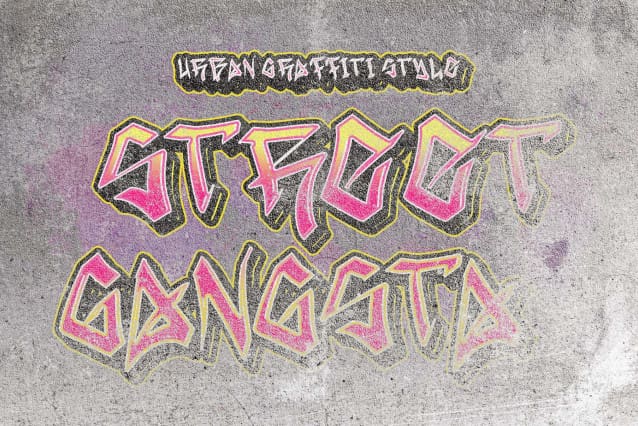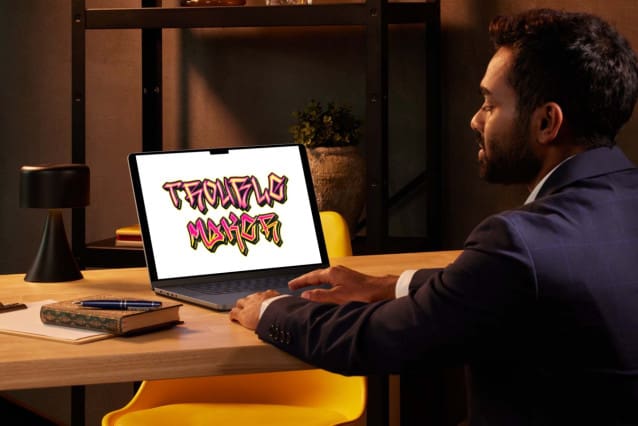
Street Gangsta Font
Street Gangsta Font is an elegant and professionally created graffiti font. Equipped with uppercase letters, lowercase letters, numerals, punctuations and multilingual support. Very suitable for banners, posters, prints, branding, stickers, logos, graffiti, murals, business branding, art and others.